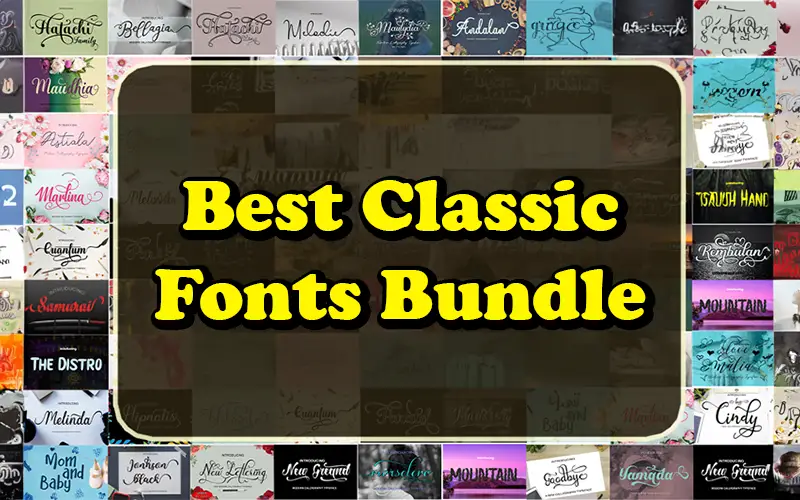
Classic fonts to create classic designs!
Create elegant, timeless designs with this bundle of Classic Fonts!
This bundle includes 35 Classic fonts available in OTF and TTF formats, which include top-sellers like Melinda, Hitachi, and Rembulan.
Each font offers over a thousand glyphs, alternates, ligatures, and swashes.
Classic Fonts Included in this bundle:
• Amanda
• Andalan
• Astiola
• Bellagia
• Brush Hand
• California Beach.
• California
• Cindy Love
• Goodbye
• Hatachi College Parallel
• Hatachi College
• Hatachi Italic
• Hatachi Long
• Hatachi Parallel
• Hatachi
• Hipnotis
• Lovemalia
• Marketing
• Marselena-Shawthegn
• Maulidar
• Maulydia
• Melinda
• Melodie
• Mom And Baby
• Mountain
• New Greand
• New Lettering Update
• Quantum
• Rembulan
• Samurai
• Sophia
• The Distro
• Winters
• Yamada
• Yolanda
A Preview Of The Classic Fonts –
Collage Of The Classic Fonts - Samurai, Maulydia, Andalan & Gradient
Collage Of The Best Classic Fonts - Sophia, Melinda, Astiola & Paralel
A Collage Of The Best Classic Fonts - The Distro, Melodie, Bellagia & Hatachi
A Collage Of The Classic Fonts - Yolanda, New Greand, Marketing & Cindy
A Preview Of The Best Classic Fonts - Winters, Mom and Baby, Hipnotis & Brush Hand
Preview Of The Best Classic Fonts - New Lettering, Quantum, Marselena & Goodbye
Preview Of The Classic Fonts - Yamada, Mountain, Love Malia & Callifornia Beach
Best Classic Fonts - Amanda, Rembulan, Mauldiar & Hatachi